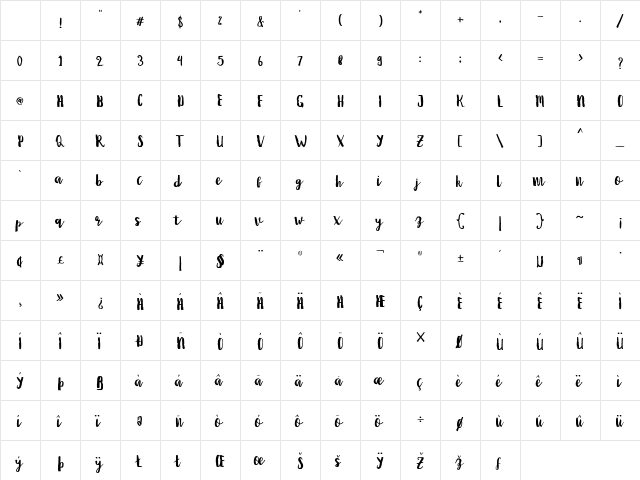
Complete Debt Collectors Regular glyph index. Displaying only characters natively supported by Debt Collectors Regular font.
Debt Collectors is a composed and adaptable typeface that performs quietly and consistently across a wide range of design contexts.